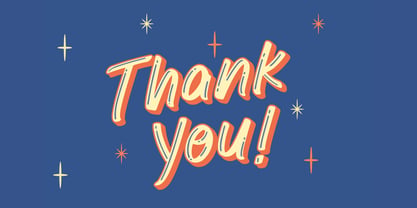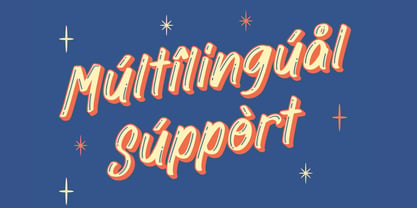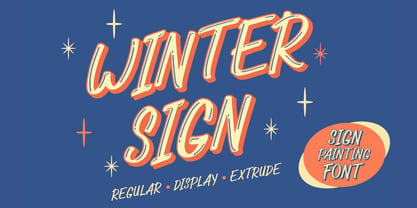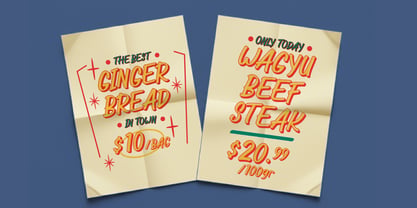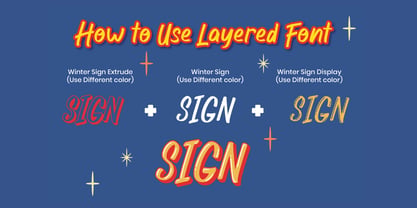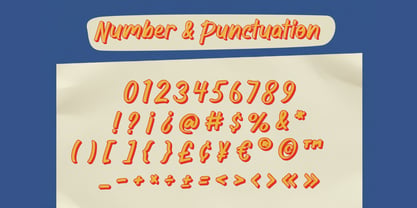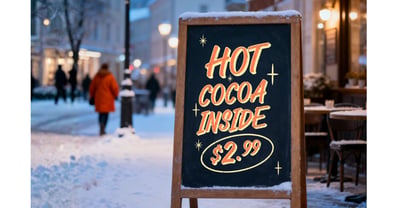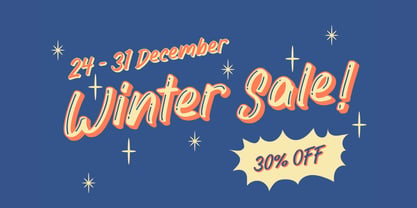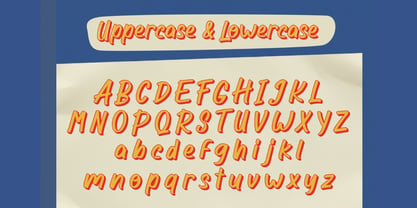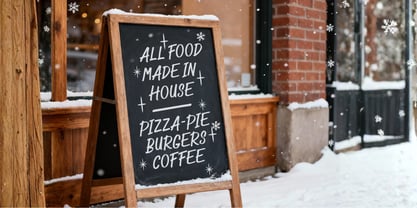
Winter Sign
by Attype Studio
The Winter Sign Font Family was designed by Fadli Ramadhan Iskandar and published by Attype Studio. Winter Sign contains 3 styles and family package options. More about this family
Bring authentic vintage charm to your creative projects with Winter Sign, a meticulously crafted sign painting font that captures the timeless appeal of hand-painted storefront lettering from the golden age of American signage. This professionally designed typeface features flowing italic letterforms, and complete multilingual support that solves the biggest challenge facing modern designers: achieving authentic hand-lettered character without sacrificing legibility or professional polish. Perfect for seasonal promotions, cafe menus, storefront signage, product packaging, and holiday marketing campaigns, Winter Sign delivers the nostalgic warmth of traditional sign painting craft with modern digital convenience through three distinct style variations (Regular, Display, and Extrude) that allow you to create stunning layered effects reminiscent of classic painted shop windows. Perfect for: Perfect for cafe and restaurant menu boards, seasonal sale signage, holiday greeting cards, product packaging design, storefront window displays, food and beverage branding, retro poster design, and small business visual identity projects. Features : - Winter Sign Font Family - Multilingual, US Roman, Latin 1 Support --- Hope you enjoy with our font! Attype Studio
Designers: Fadli Ramadhan Iskandar
Foundry: Attype Studio
Attype Studio is a vibrant and innovative type foundry founded in 2018 by Fadli, a dedicated type designer from Indonesia. Our mission is to create unique and engaging display fonts that elevate brands and projects. Specializing in lettering and brush script calligraphy, we pride ourselves on designing layered display fonts that are dynamic and full of personality.Located in Indonesia, Attype Studio focuses on crafting fonts that bring brands to life, ensuring they stand out with a touch of elegance and creativity. Our fonts are perfect for branding, providing a fresh and lively feel that captures attention. We aim to make each font not only functional but also an artistic expression that adds character to any project.Our dedication to quality and creativity has made our fonts popular among various businesses and designers worldwide. For more information about our work and to explore our font collections, visit our website or follow us on social media. Discover how Attype Studio can transform your brand with our unique and captivating fonts.